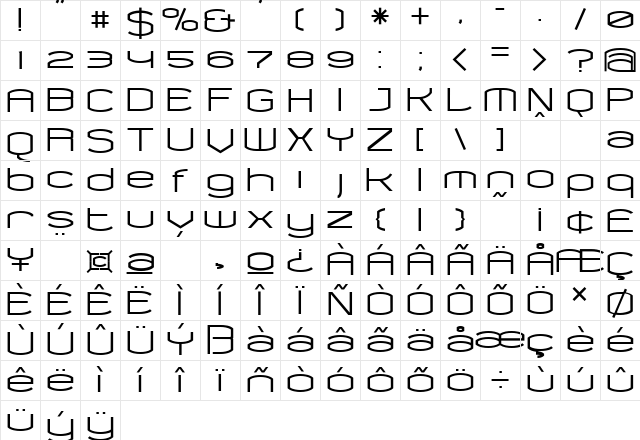
Chord Regular
Design Context for Chord
Chord is a composed and adaptable typeface that performs quietly and consistently across a wide range of design contexts.